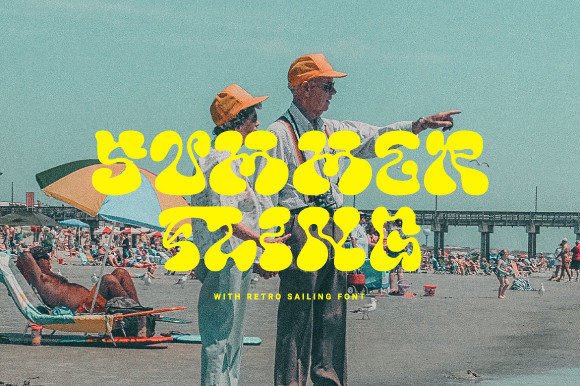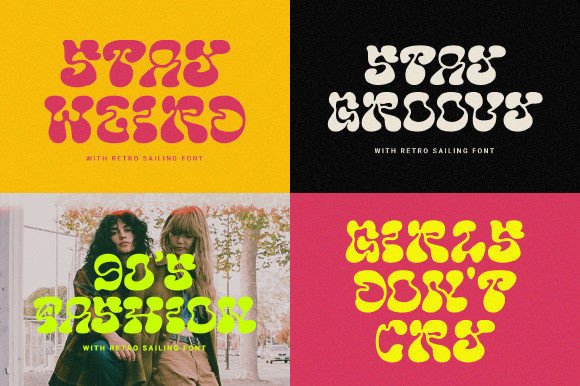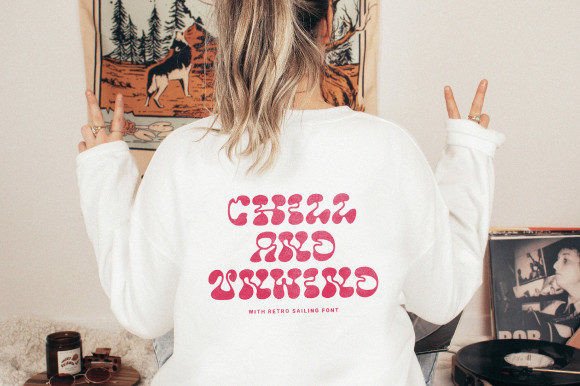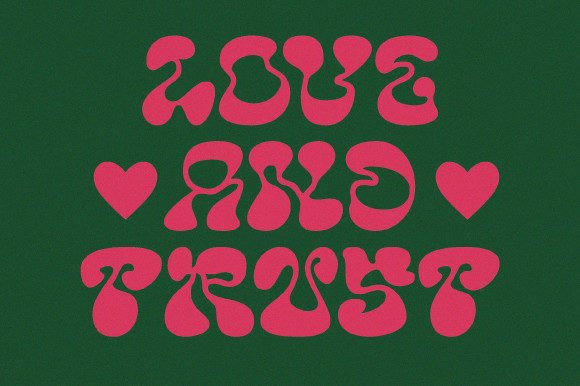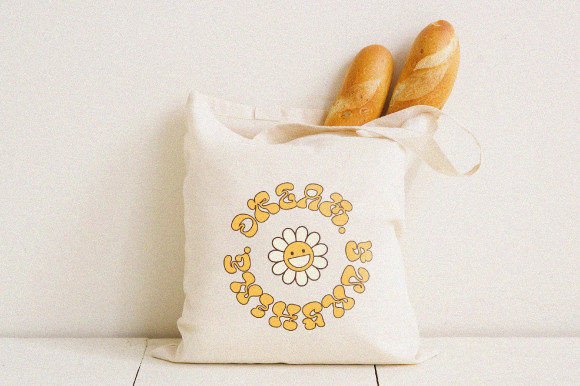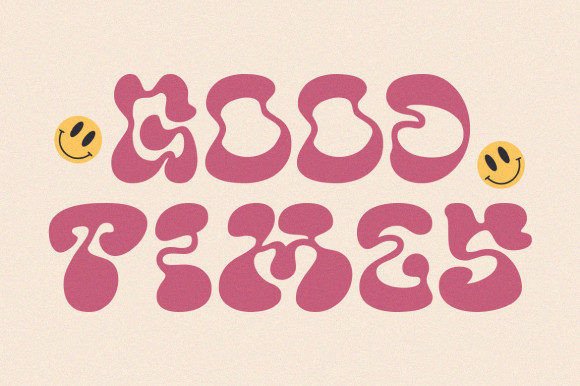
Introduction to Retro Sailing Font
As designers, we’ve all been there – staring at a blank canvas, waiting for the perfect idea to strike. For me, it was a lazy Sunday morning, sipping coffee, and scrolling through design inspiration boards. That’s when I stumbled upon the Retro Sailing Font, and my creative juices started flowing. Its whimsical, retro touch instantly captured my attention, and I knew I had to learn more.
The Retro Sailing Font is more than just a design resource – it’s a versatile tool that can elevate any creative project. Whether you’re designing merchandise, posters, covers, or social media posts, this font is sure to bring a unique touch. Its transparent background makes it easy to layer and combine with other design elements, while its high-quality design ensures it looks great on any platform.
Key Features of Retro Sailing Font
- Unique Vintage Aesthetic: This font features a distinctive retro sailing-inspired design that adds a touch of nostalgia and charm to any creative project.
- High-Quality Design Resource: Retro Sailing Font is a high-quality design resource that includes a range of characters, including uppercase and lowercase letters, numbers, and symbols.
Honest Review: Retro Sailing Font
I recently stumbled upon the Retro Sailing Font and I’m excited to share my thoughts on it. As a designer, I’m always on the lookout for unique and high-quality design resources to elevate my creative projects.
The Retro Sailing Font has a distinct, vintage feel to it that immediately caught my attention. It’s perfect for projects that require a touch of nostalgia and elegance. The font is available for free download, which is a definite plus for designers on a budget.
- ✨ Unique and recognizable design style
- ✨ High-quality glyphs and characters
- ⚠️ Limited character set, may not be suitable for long texts
- ⚠️ Not ideal for projects that require a bold, modern font
Overall, I’m impressed with the Retro Sailing Font. It’s a great addition to any designer’s toolkit, especially for projects that require a vintage or retro aesthetic. While it may have some limitations, its unique design style and high-quality glyphs make it a valuable resource for creative projects.
The Retro Sailing Font is perfect for:
- Creating nautical-themed designs, such as logos and graphics for sailing clubs or boat companies.
- Adding a vintage touch to modern designs, such as wedding invitations or promotional materials.
- Designing graphics for travel and adventure brands, such as outdoor gear companies or travel agencies.